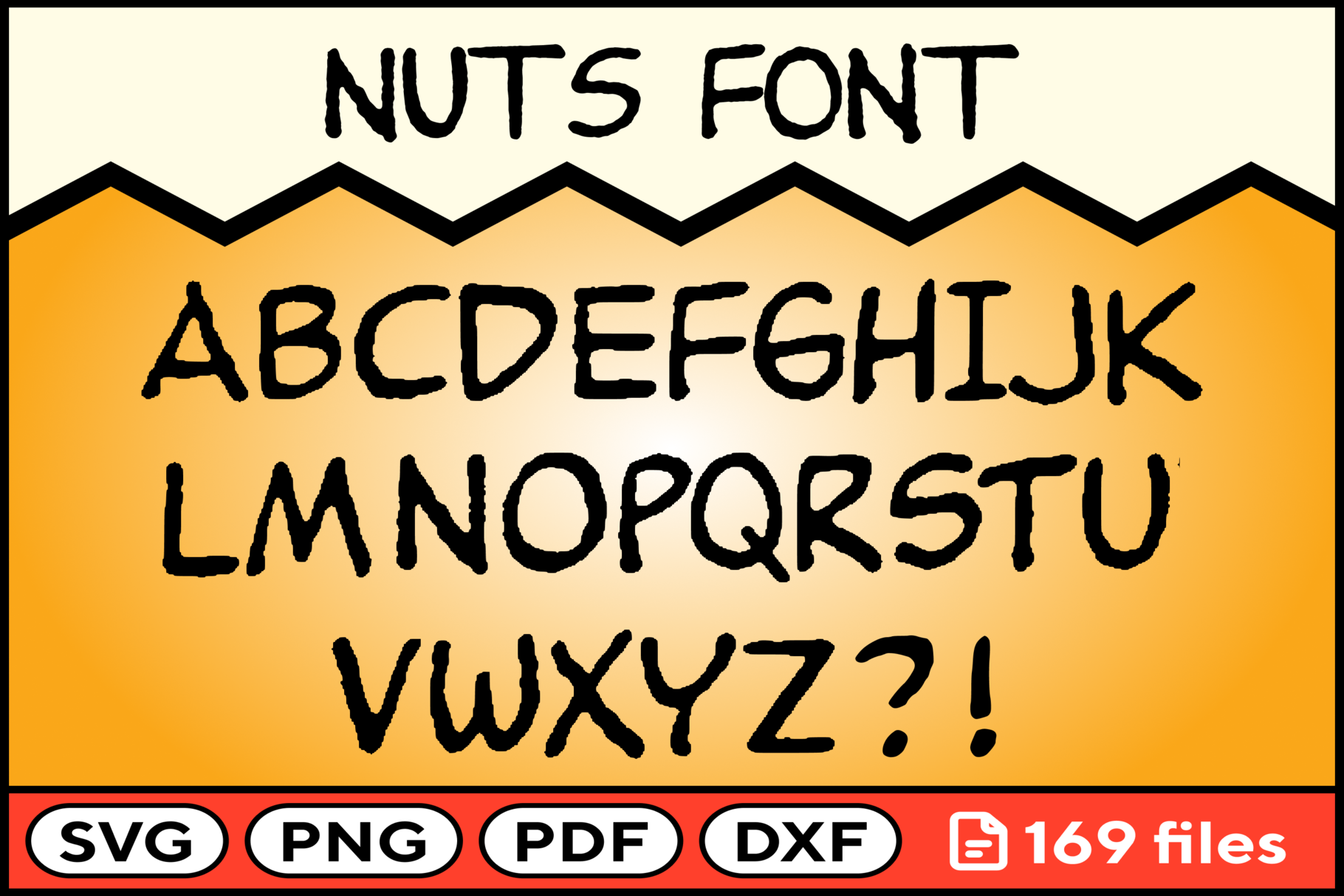
Nuts Font Svg Png Pdf Dxf
Cartoon Font, Alphabet. This High quality Dog font images can be used for all of your Crafting needs! SVG and PNG images are perfect for t-shirt design, scrapbooking, photo album, card making, coffee mug designs, prints, anything you want to cut with your Cricut and Silhouette. The possibilities are endless!